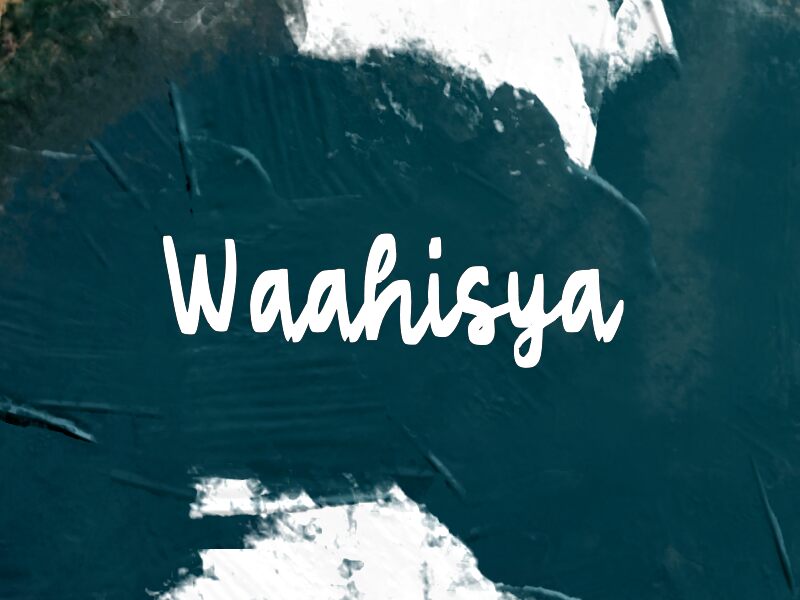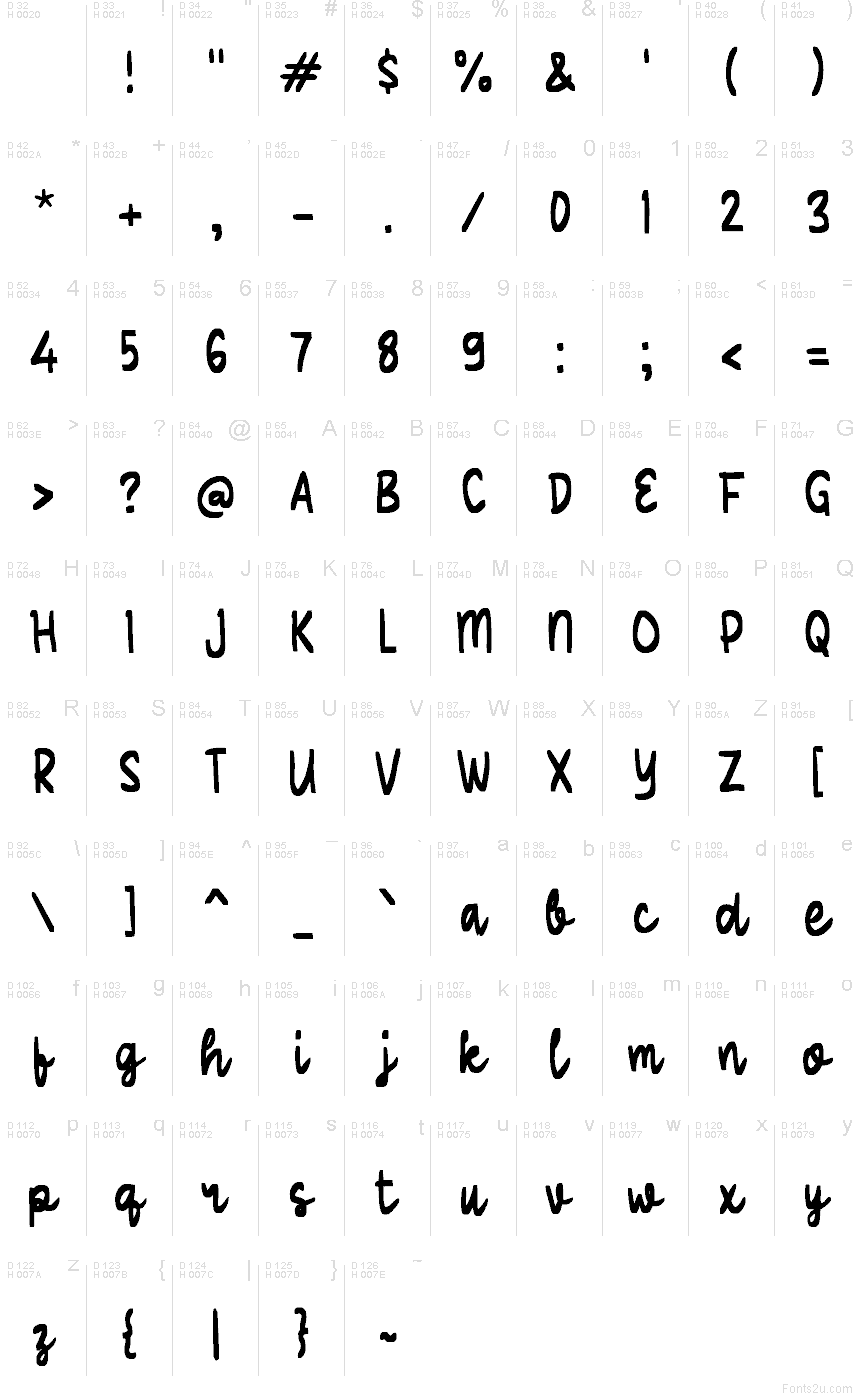
Waahisya
Waahisya by Wep is a free hand-painted brush font with a loose, casual rhythm. The letters feel broad and inky, with rounded joins, uneven stroke endings, and a slightly bouncy flow that keeps the wordmark look human rather than polished.
It fits poster headlines, cafe branding, album covers, packaging, and social media title cards where that brushed texture can carry the mood. As a free font, Waahisya also works well for short quotes, logo sketches, and merchandise graphics, especially when you want lettering that feels quickly made by hand rather than carefully plotted.